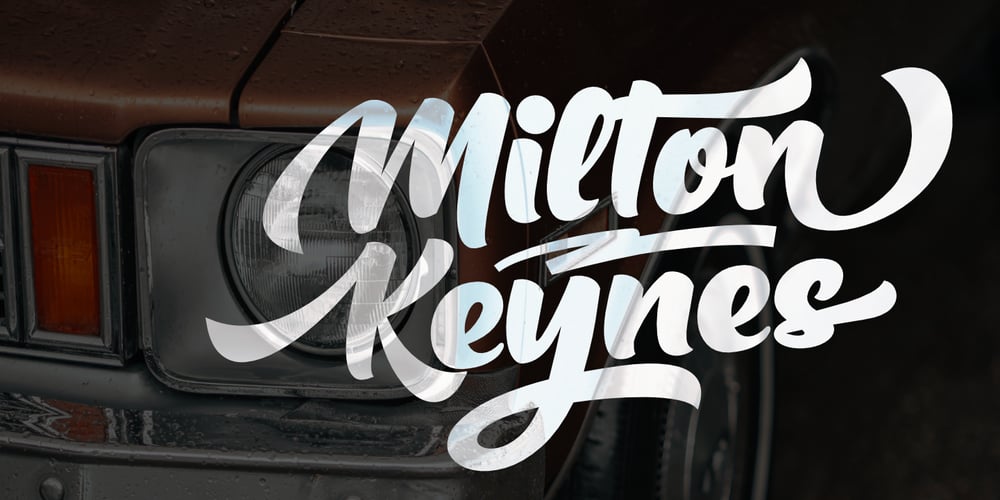
Milton Keynes Font Family was designed by Toni Dzulham and published by Dumadi. Milton Keynes contains 1 styles and family package options. Milton Keynes is a modern thick font that comes from hand scratches so it is great for branding logos, t-shirt designs, posters, business cards, typography, newspapers, other design projects and many other media that can be manipulated with this font.